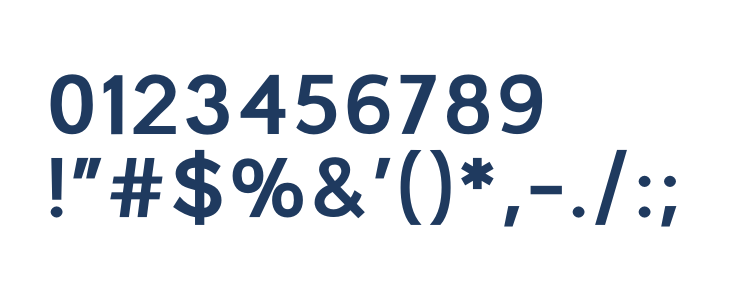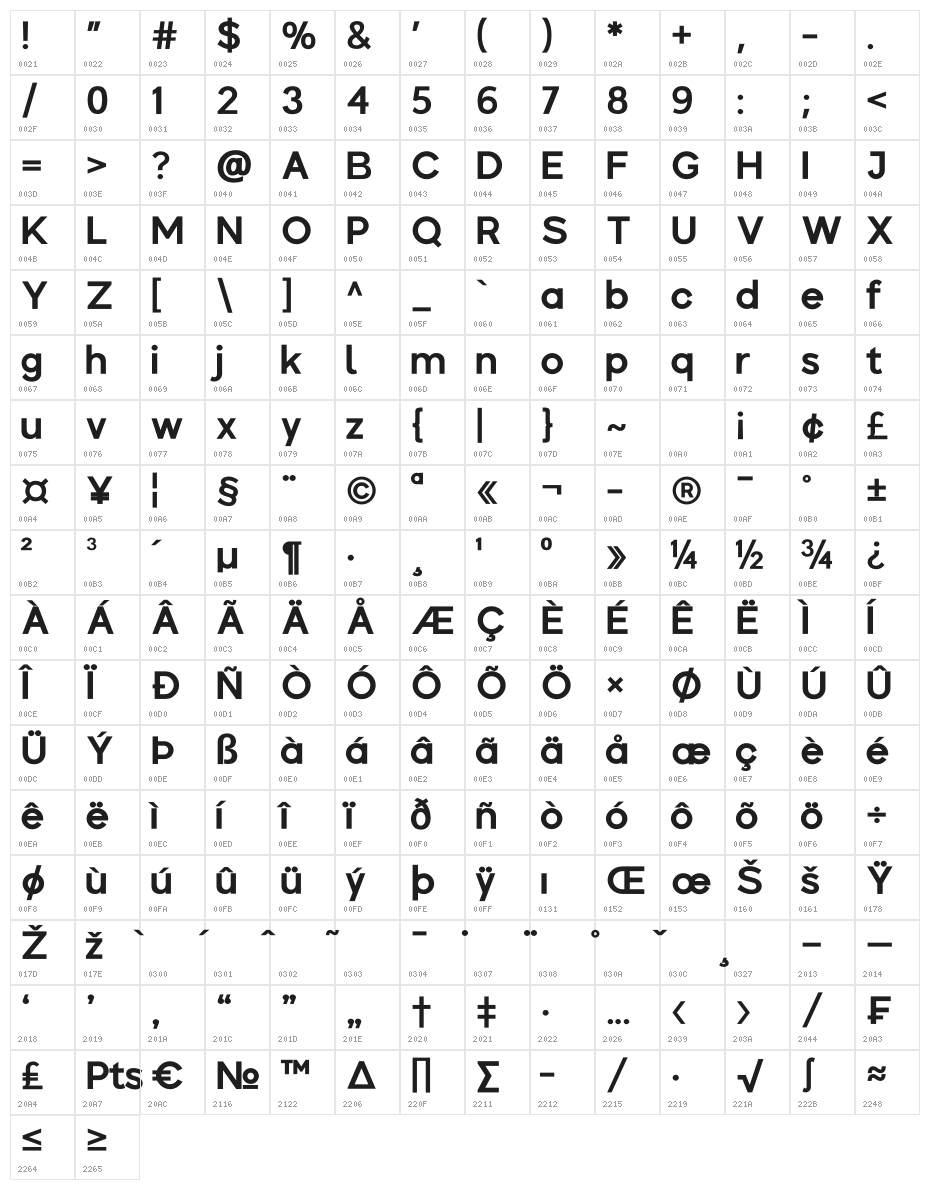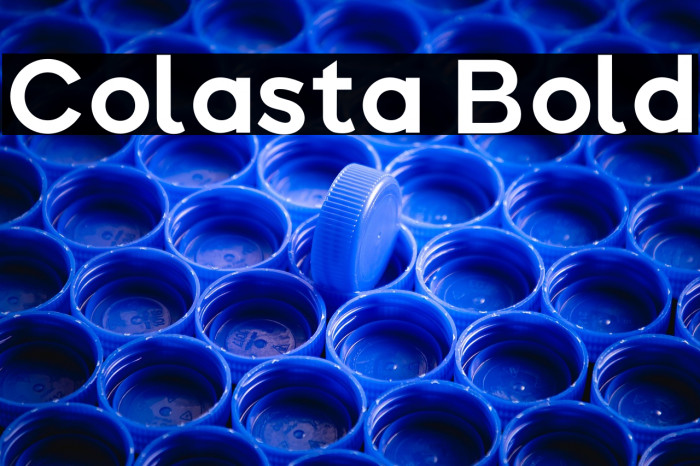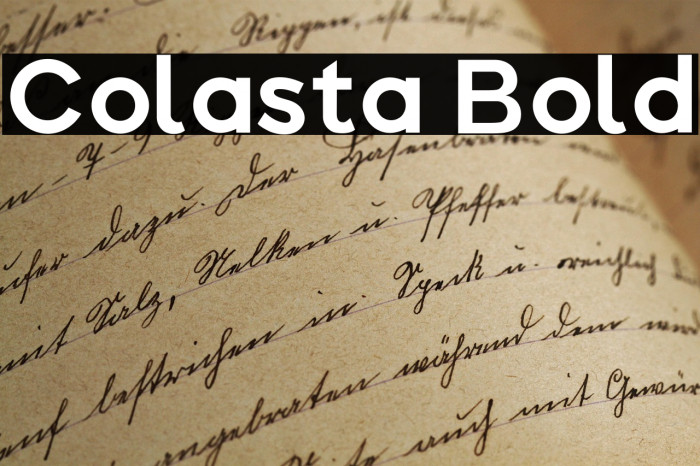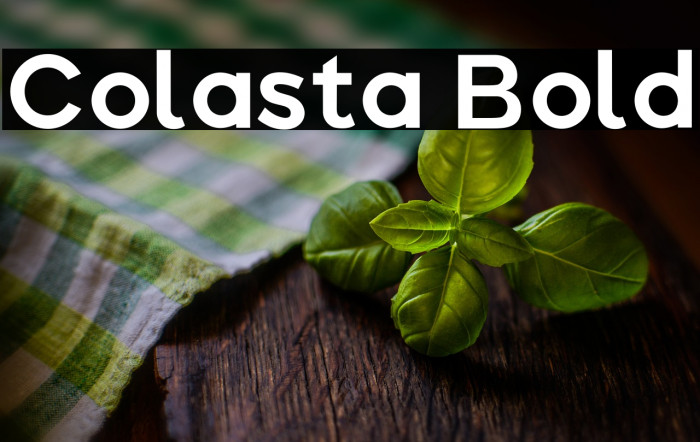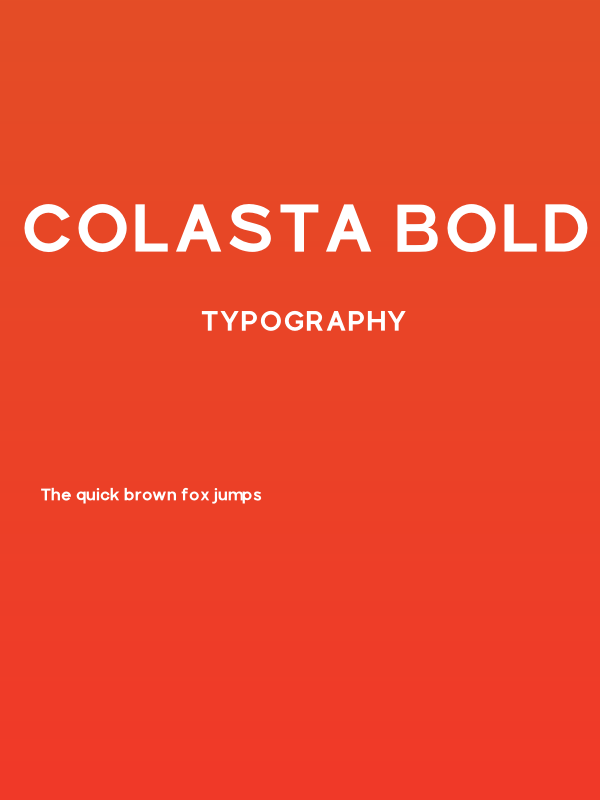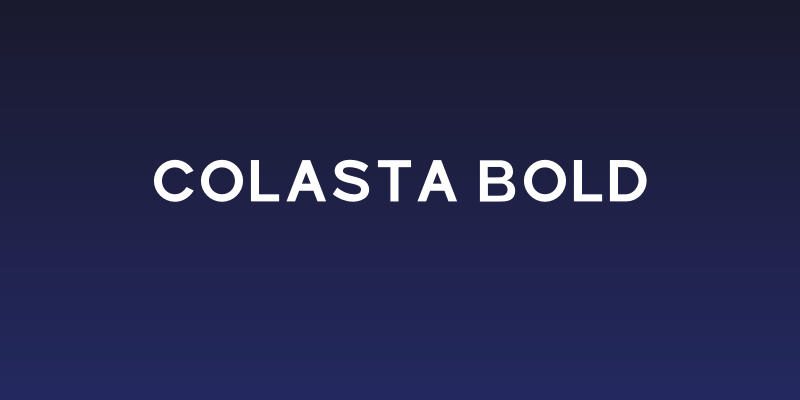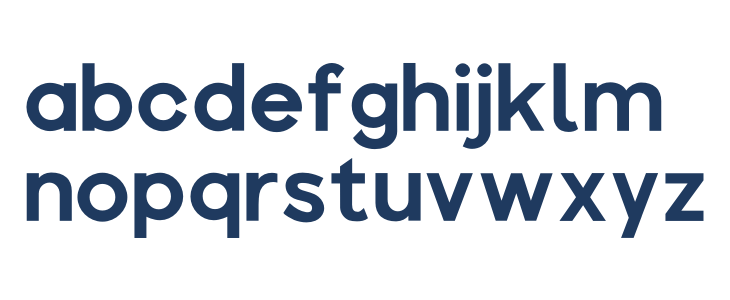
Colasta Bold Font
Colasta Bold Description
This typeface features a bold, clean, and modern aesthetic with a sans-serif style. The characters are evenly weighted, providing a consistent and balanced appearance. The uppercase and lowercase letters are well-proportioned, with rounded edges that add a friendly and approachable feel. The numerals are clear and distinct, ensuring readability. Special characters are included, maintaining the font's cohesive design. This font is versatile, suitable for various applications where clarity and impact are essential.